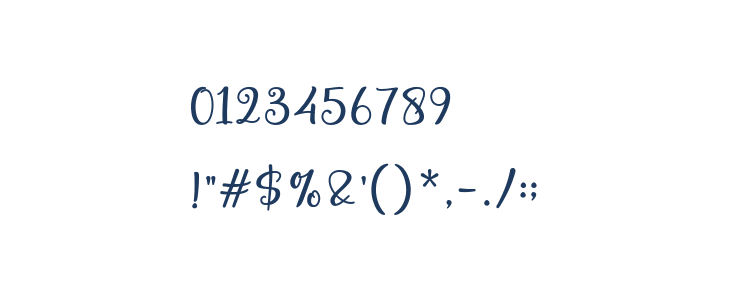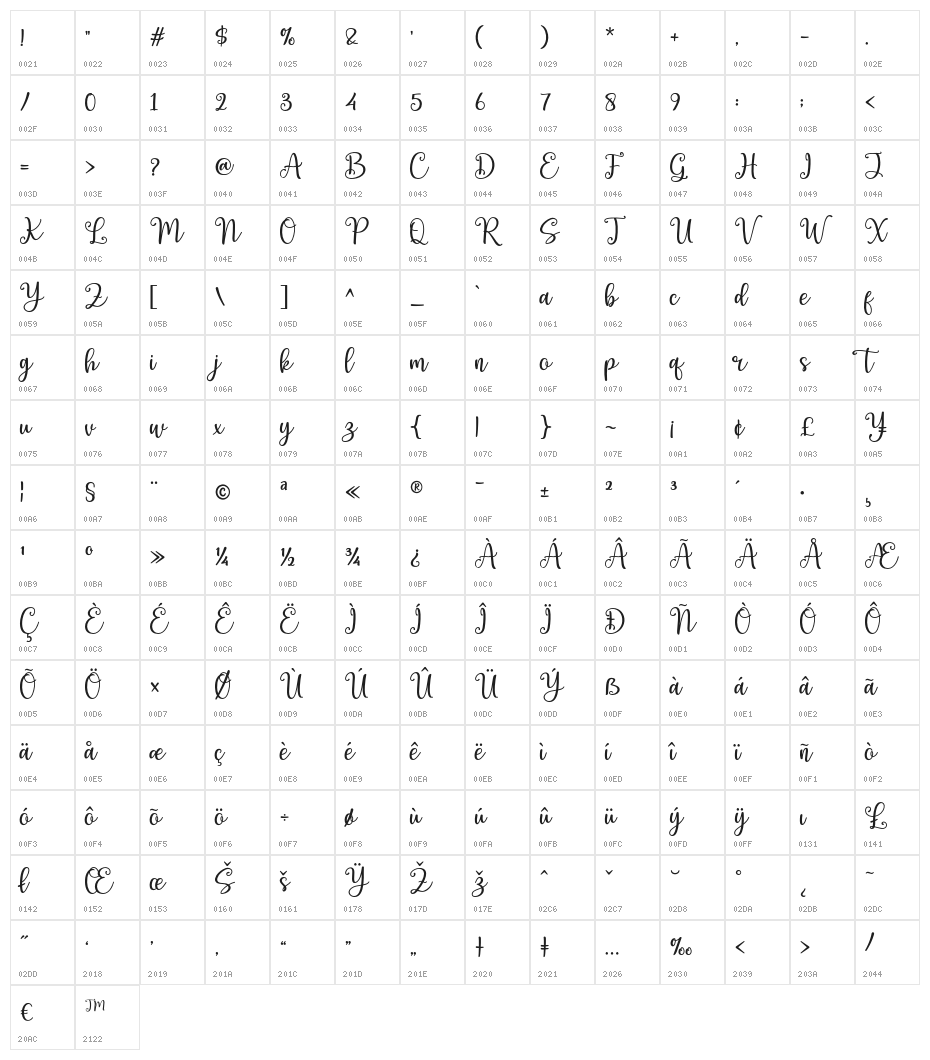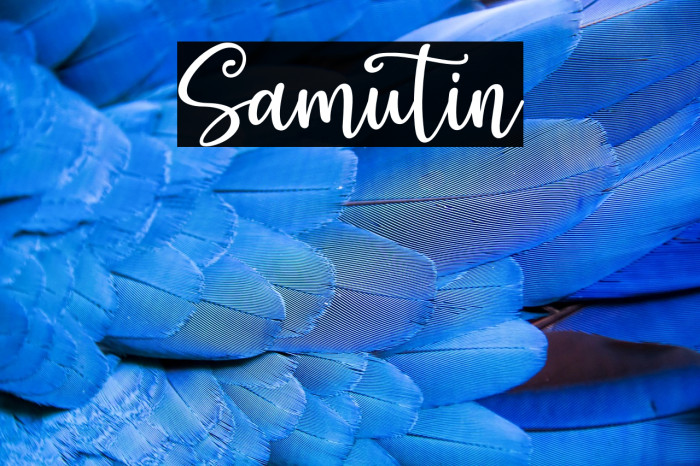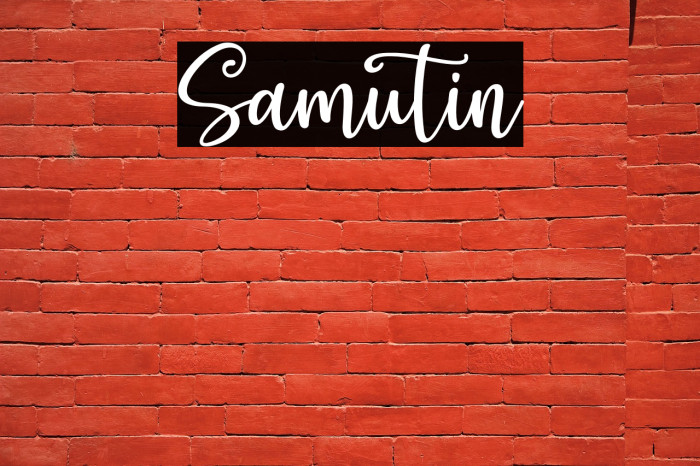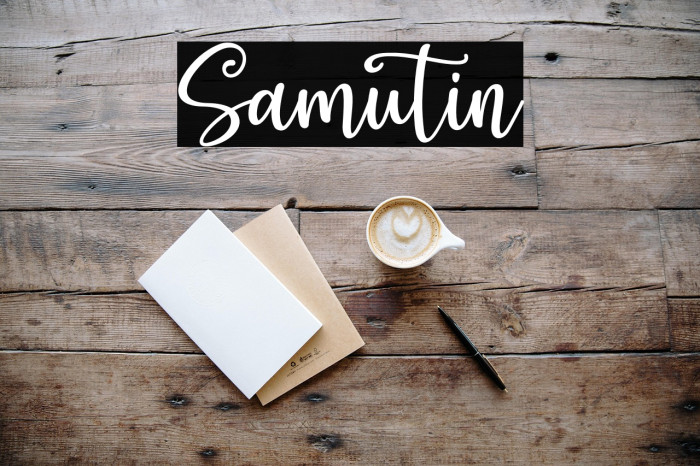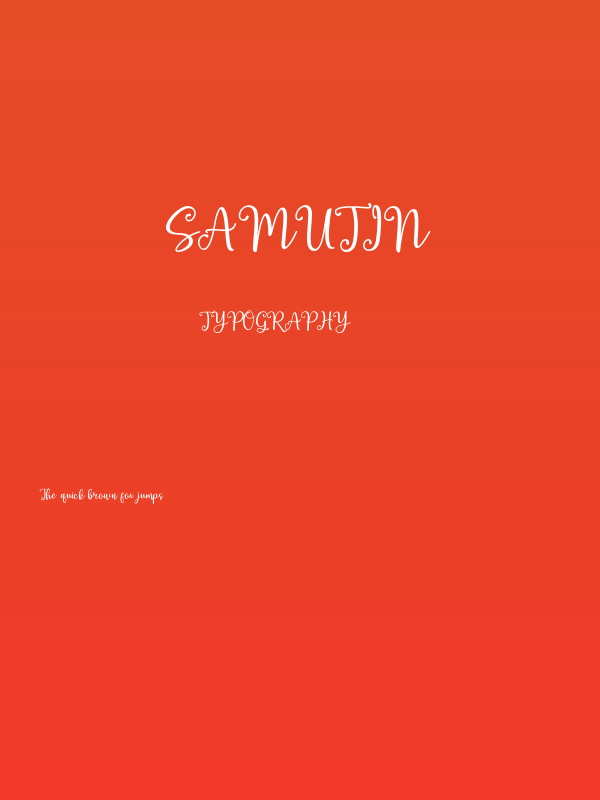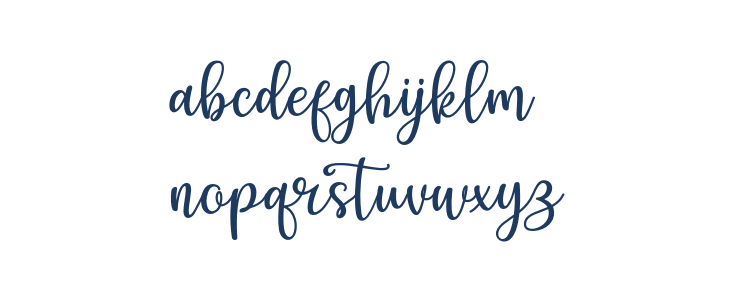
Samutin Font
Samutin Description
This font features a playful and elegant script style, characterized by its flowing and interconnected letterforms. The uppercase letters exhibit a whimsical flair with decorative swashes and loops, while the lowercase letters maintain a smooth and cursive appearance. The numerals are consistent with the overall style, offering a cohesive look. Special characters are designed to complement the script nature, adding versatility to the font. The overall impression is one of sophistication and charm, making it suitable for a variety of creative applications.
| Use Case | Logos, Invitations, Decorative text |
| Proposed Projects | Ideal for wedding invitations, greeting cards, branding, and logo design. |